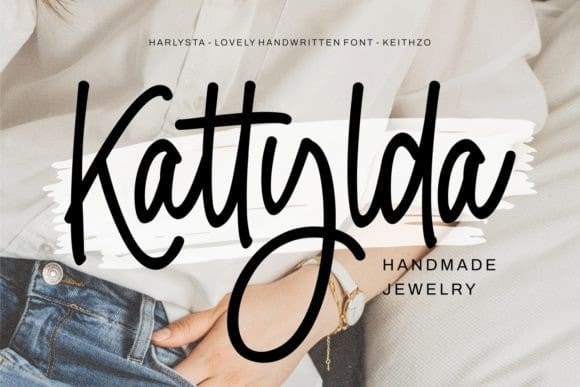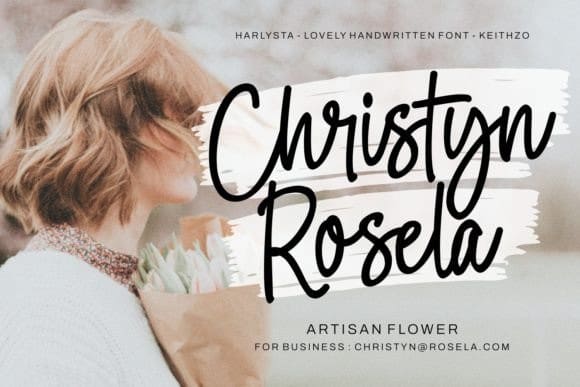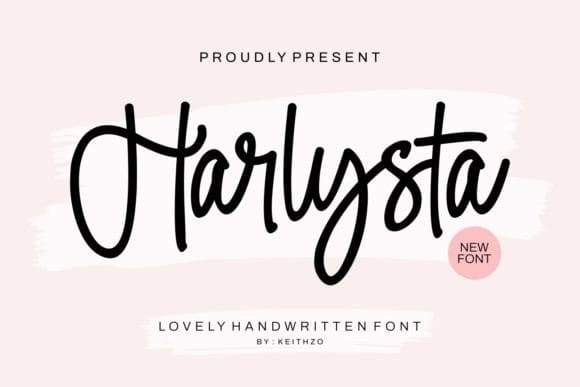
Harlysta Script Font
Harlysta Script Font is a cute and friendly handwritten font. Its casual charm makes it appear wonderfully down-to-earth, readable, and, ultimately, incredibly versatile.